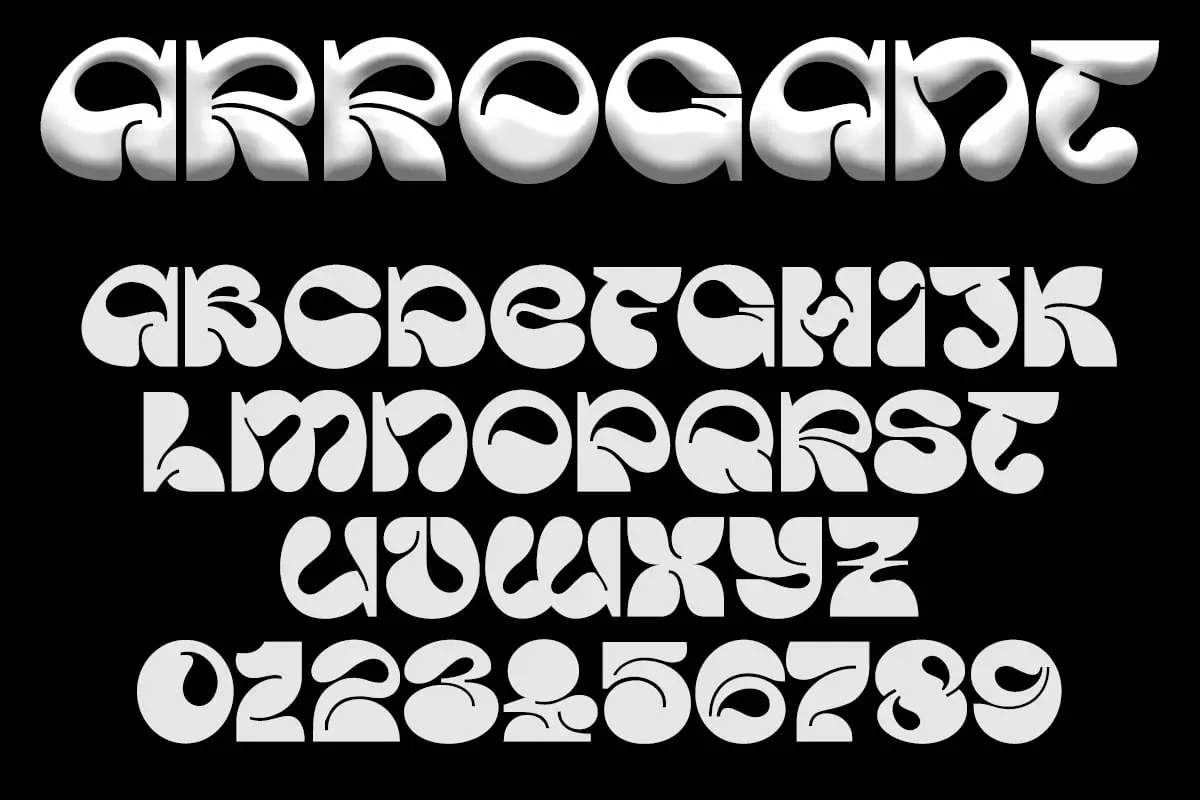
Arrogant Font By Carmen Nácher
The Arrogant Font by Carmen Nácher is a striking typeface that blends elegance with a modern edge. This font is perfect for a variety of design projects, including branding, logos, web design, and print materials.
• Special characters and punctuation included
• Ideal for creating eye-catching headlines and logos
• Great for both digital and print applications
• Combine with complementary fonts for a balanced design